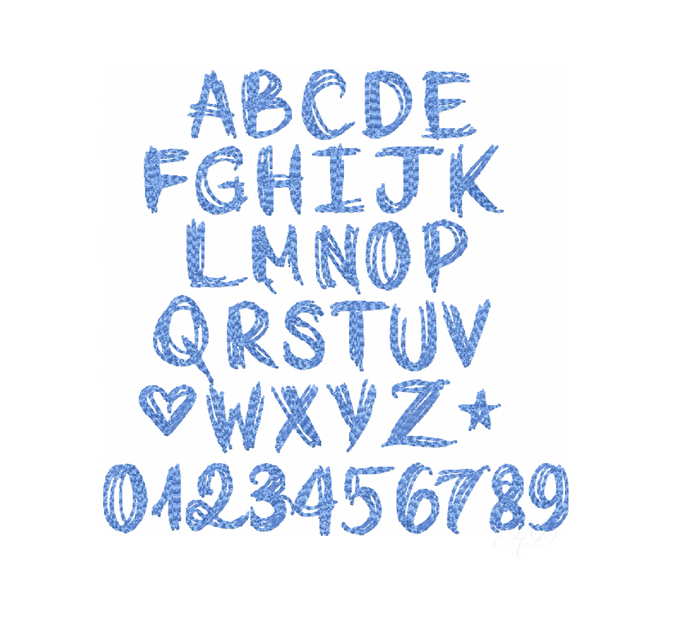
Cinco De Mayo Embroidery Font
Add a festive touch to your crafting projects with our Cinco De Mayo Embroidery Font. This single-color type font features playful embroidery fill stitches and contrasting redwork details, perfect for celebrations and DIY designs!
The font includes uppercase letters A-Z, numbers 0-9, and delightful accent characters like hearts and stars. Available in various sizes – 1", 1.5", 2", 2.5", and 3" – this versatile font can enhance any project.